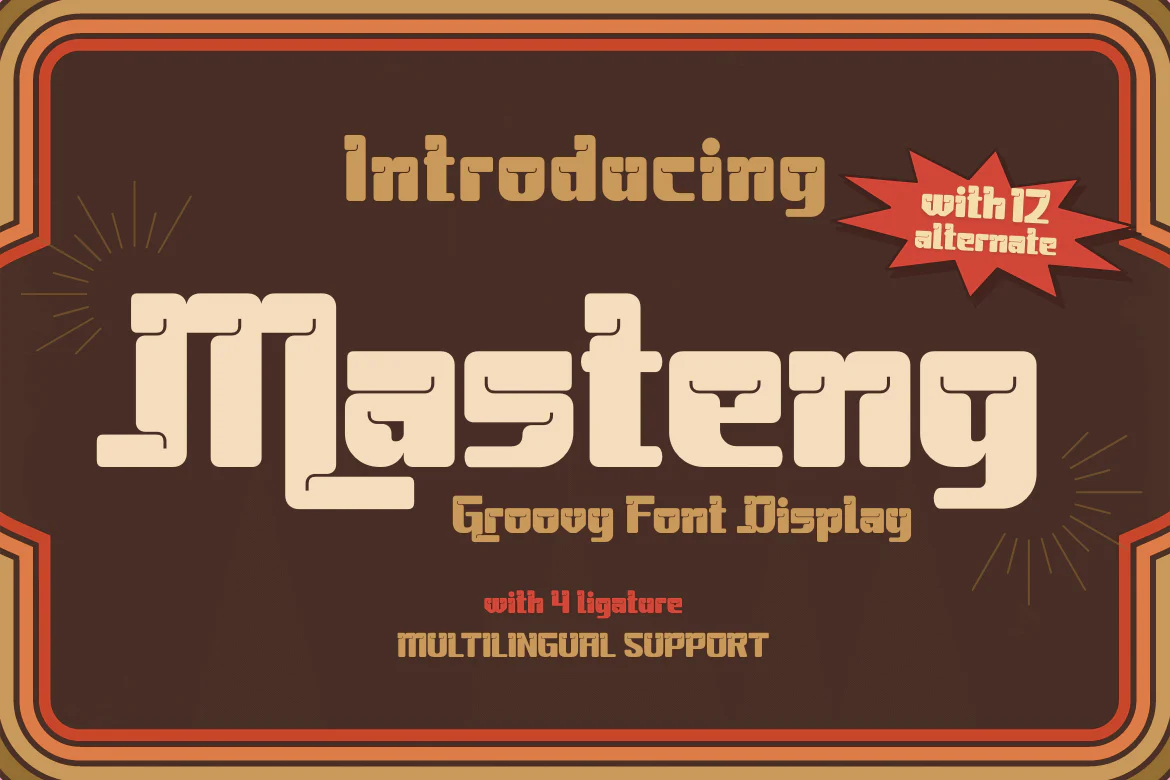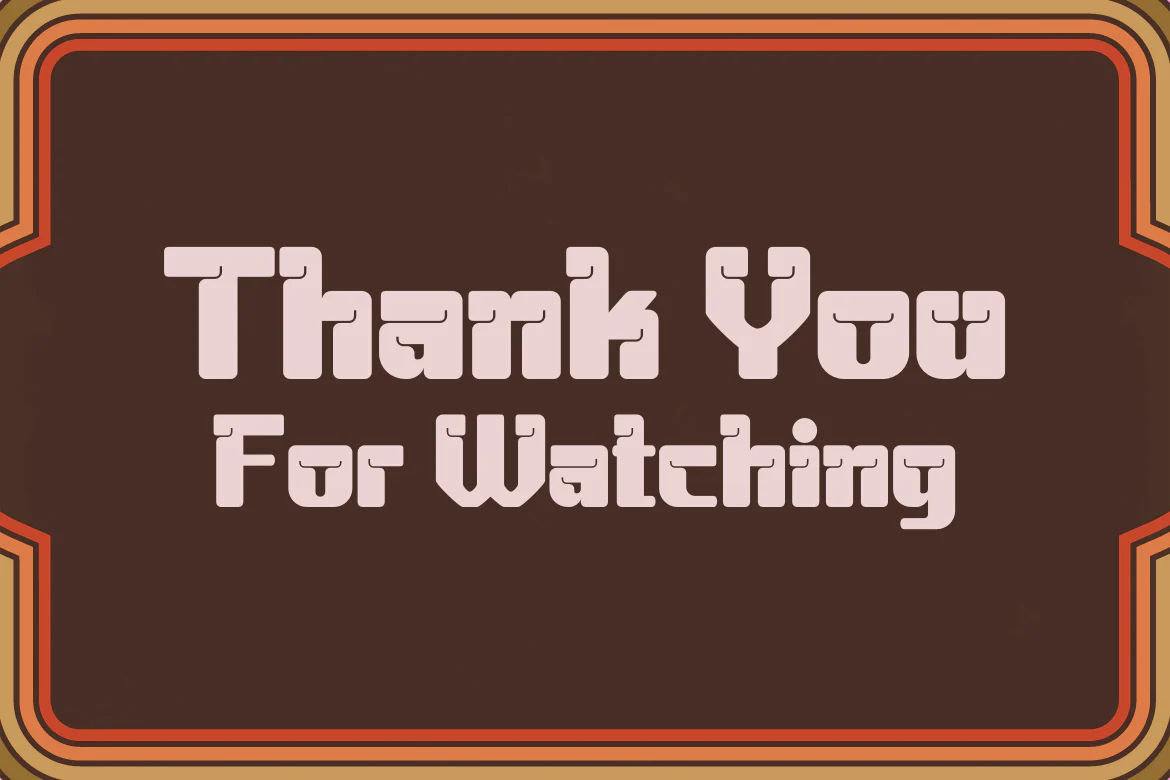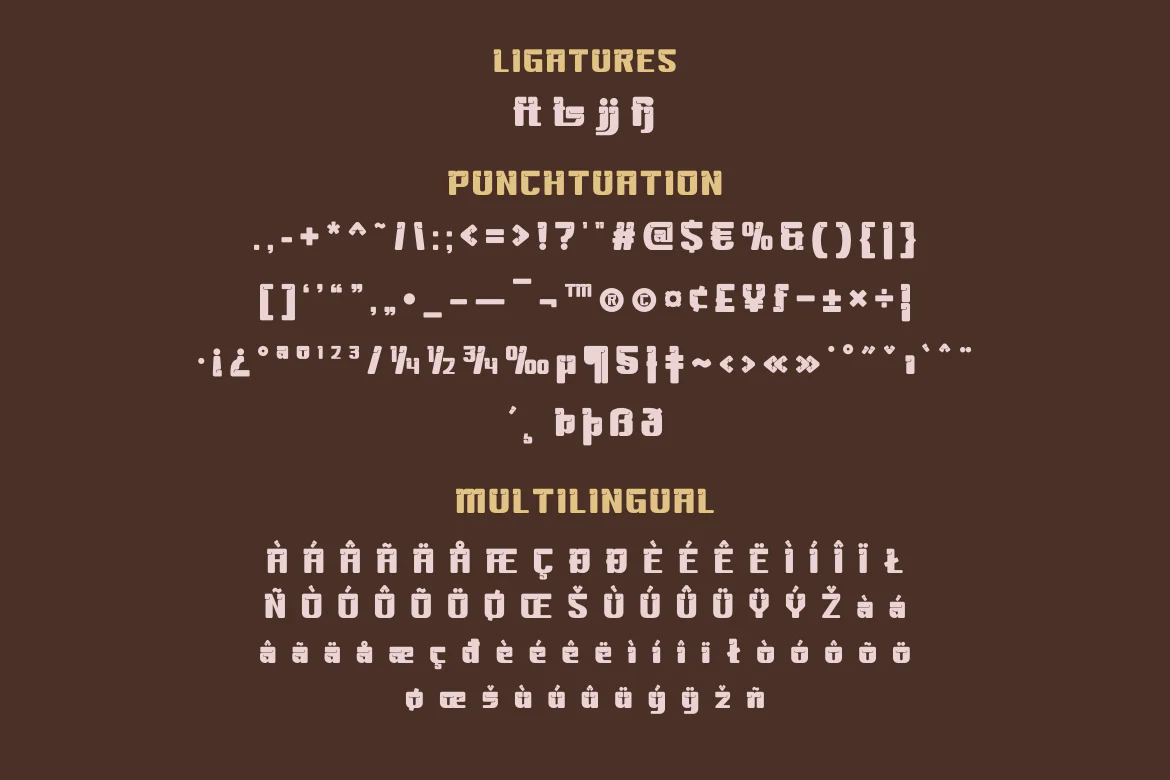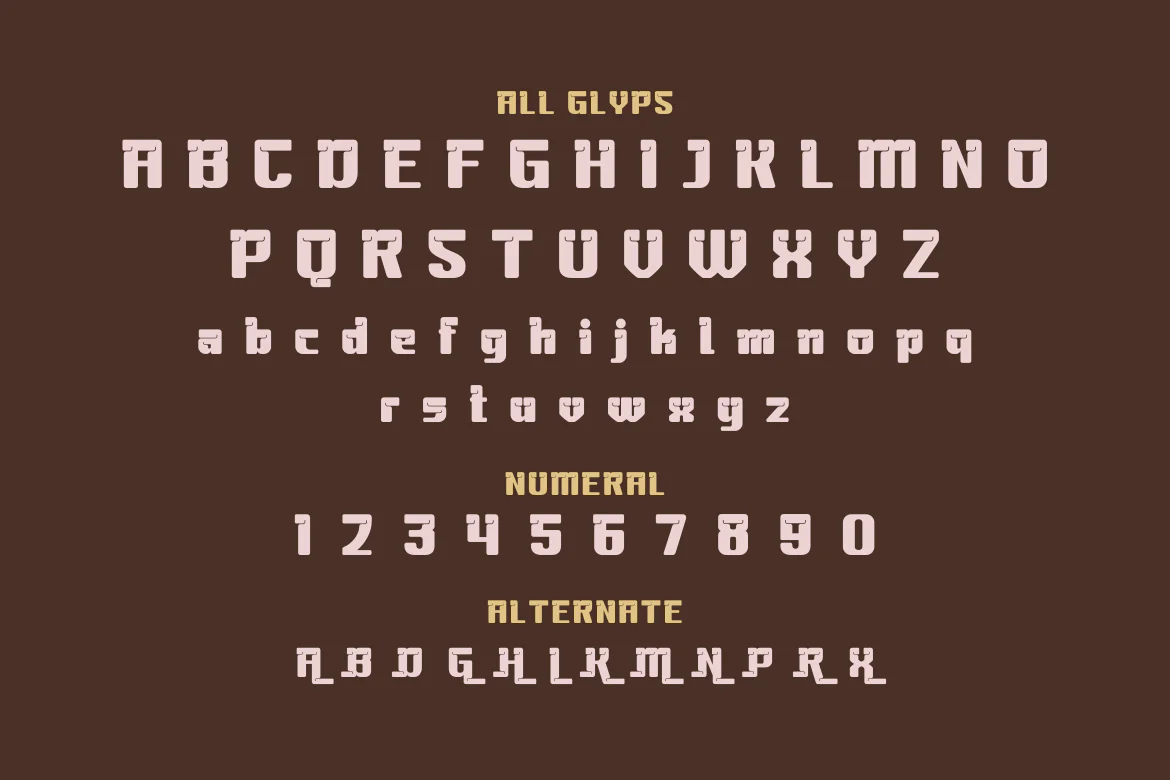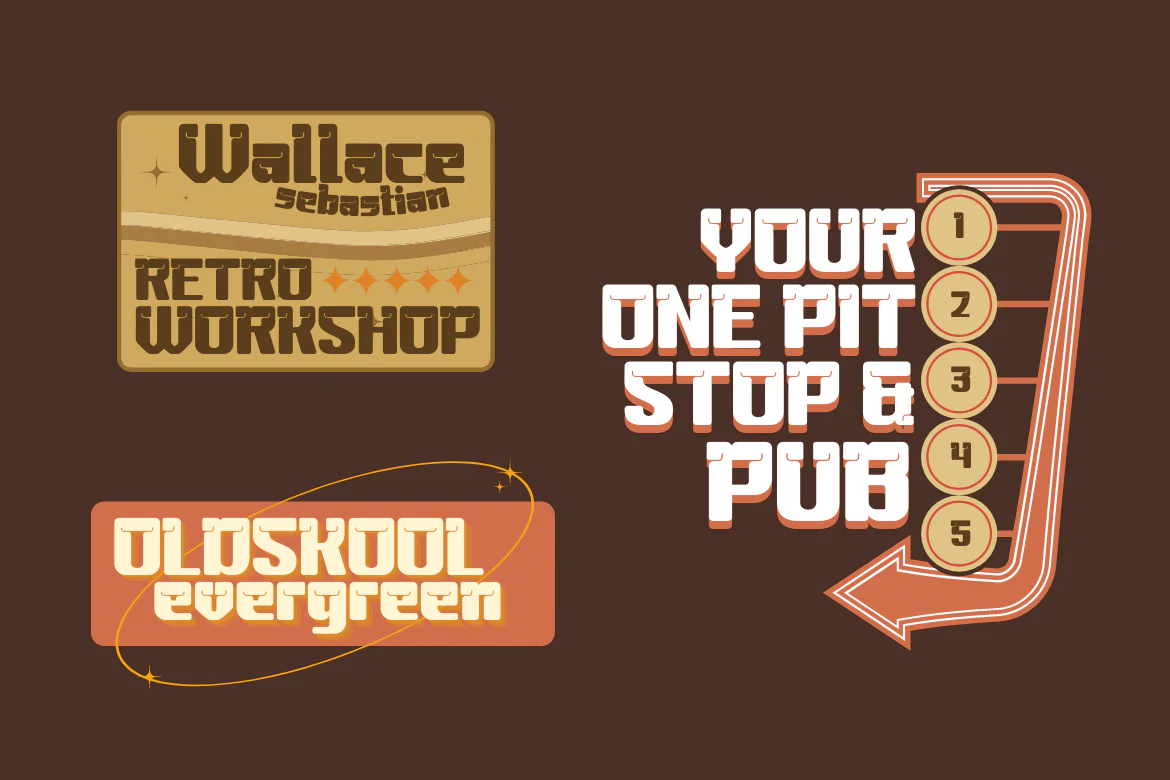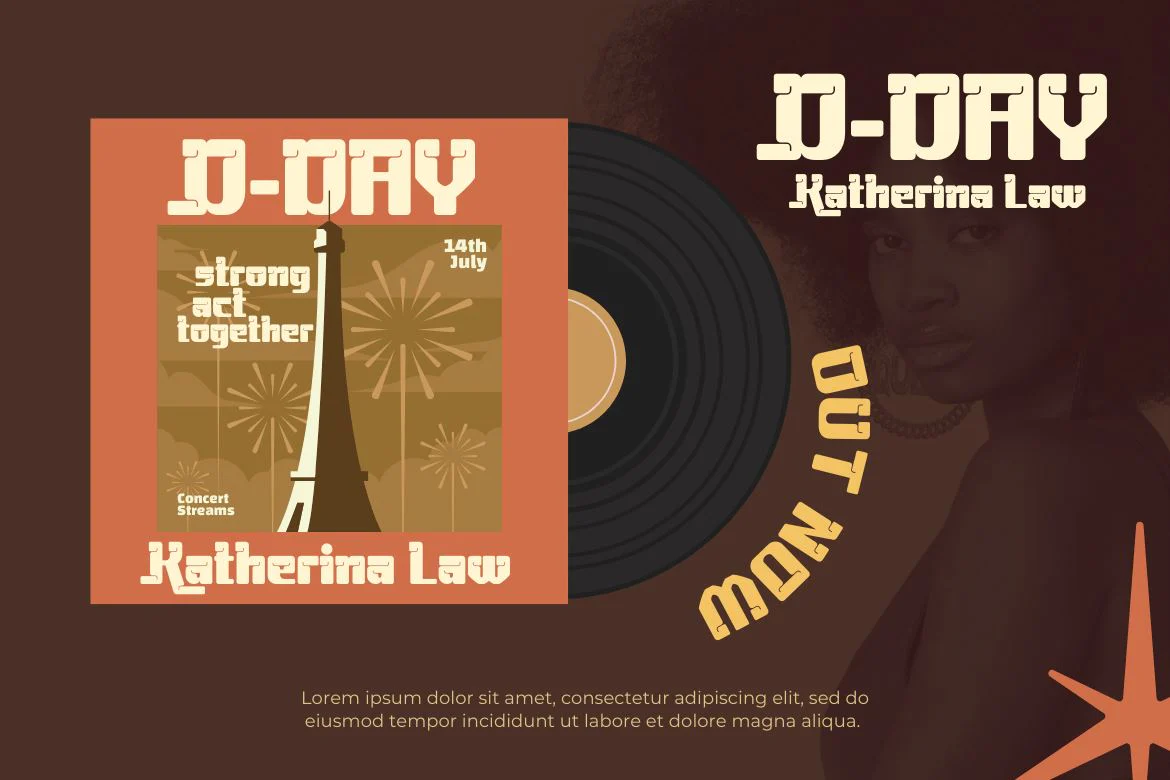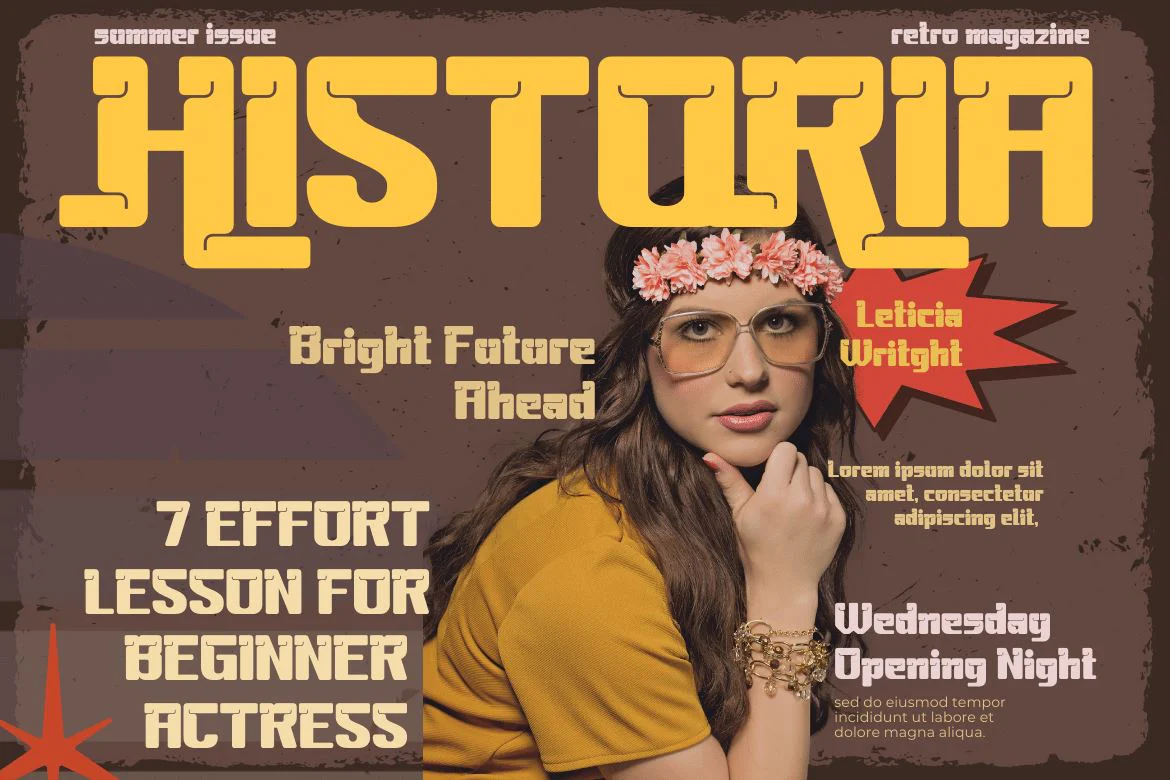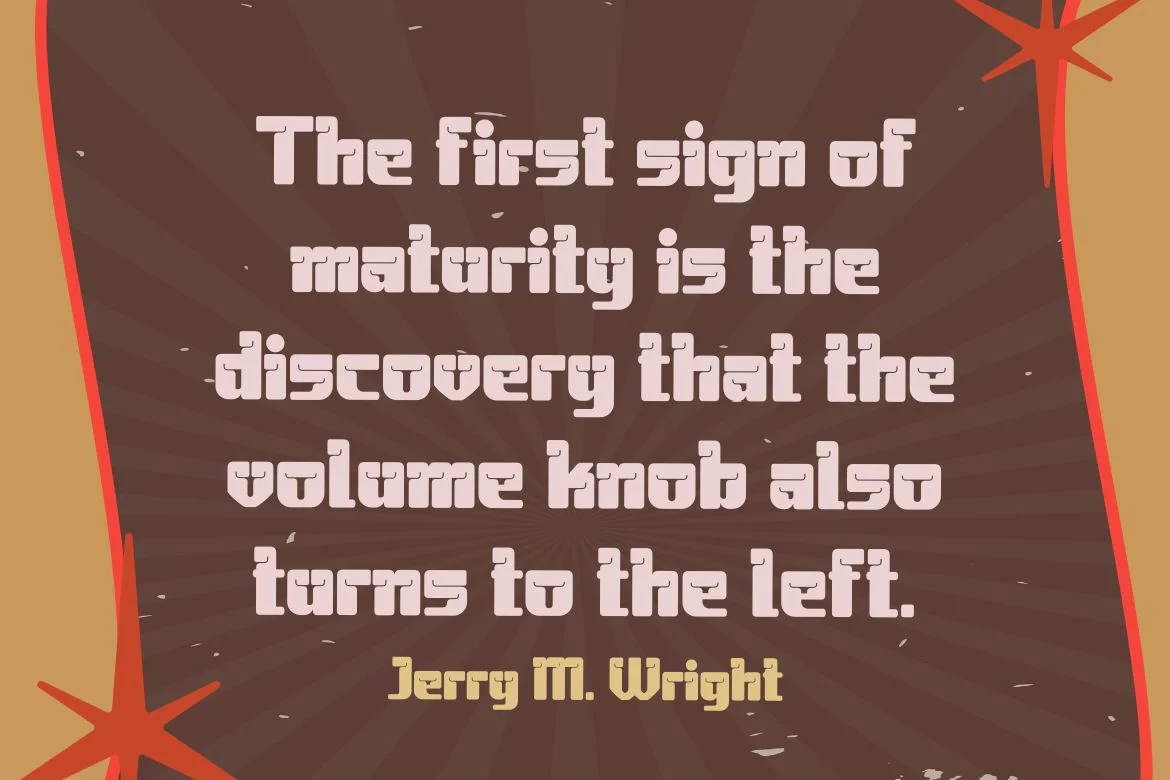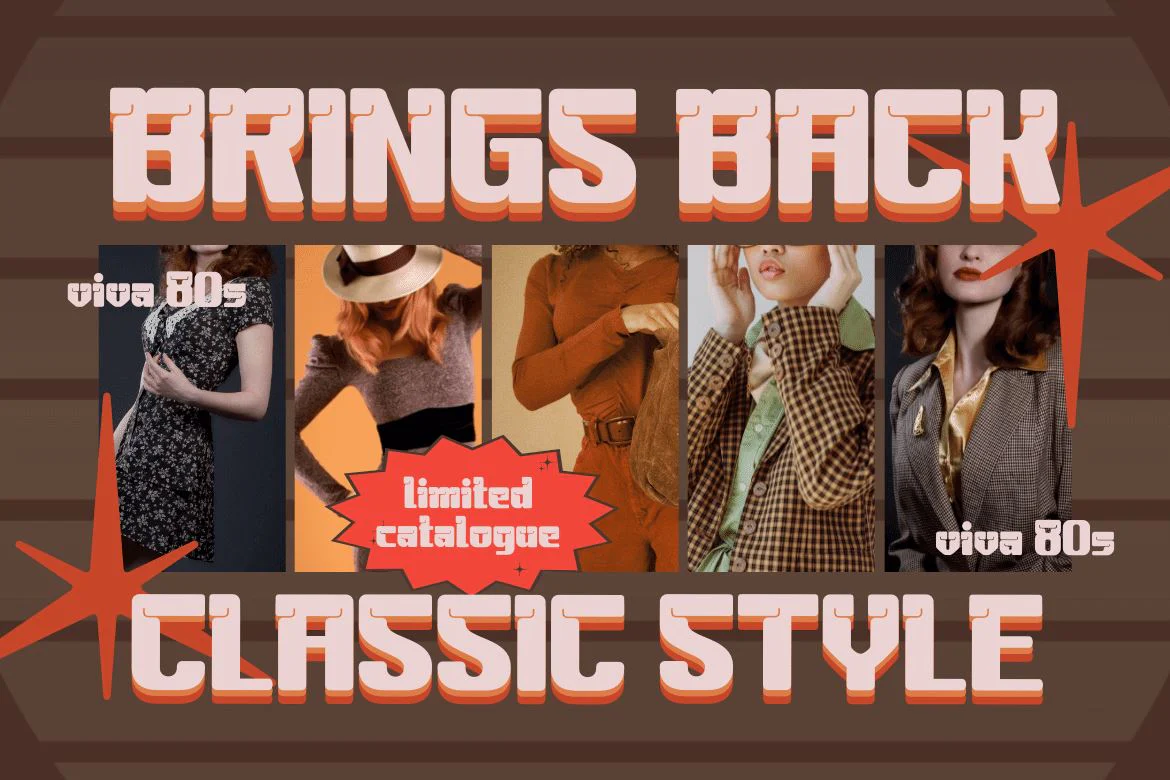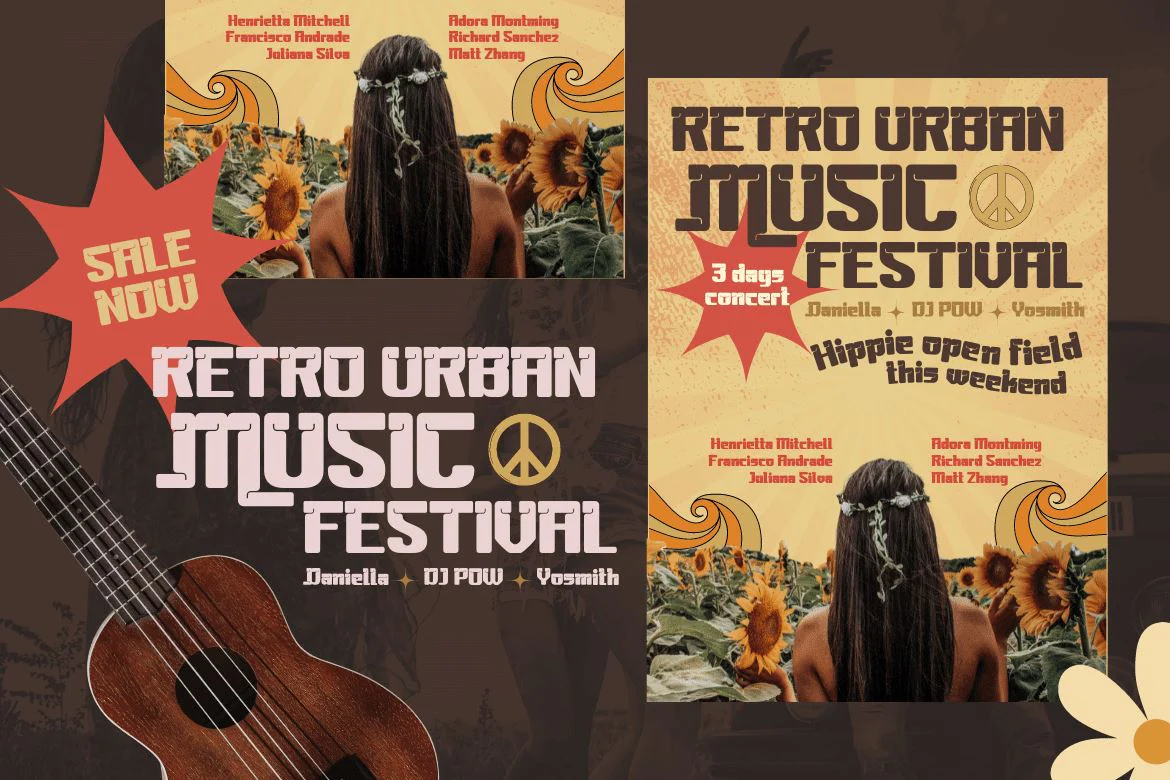
Masteng | Groovy Retro Font
Turn your designs into something special with the Masteng Groovy Font. This font features an anatomical design between thick and thin lines, making it visually unique from most other fonts. The combination of words that arise will make your project bold and powerful. Take advantage of this awesome font for a project that’s superior and more striking than ever!